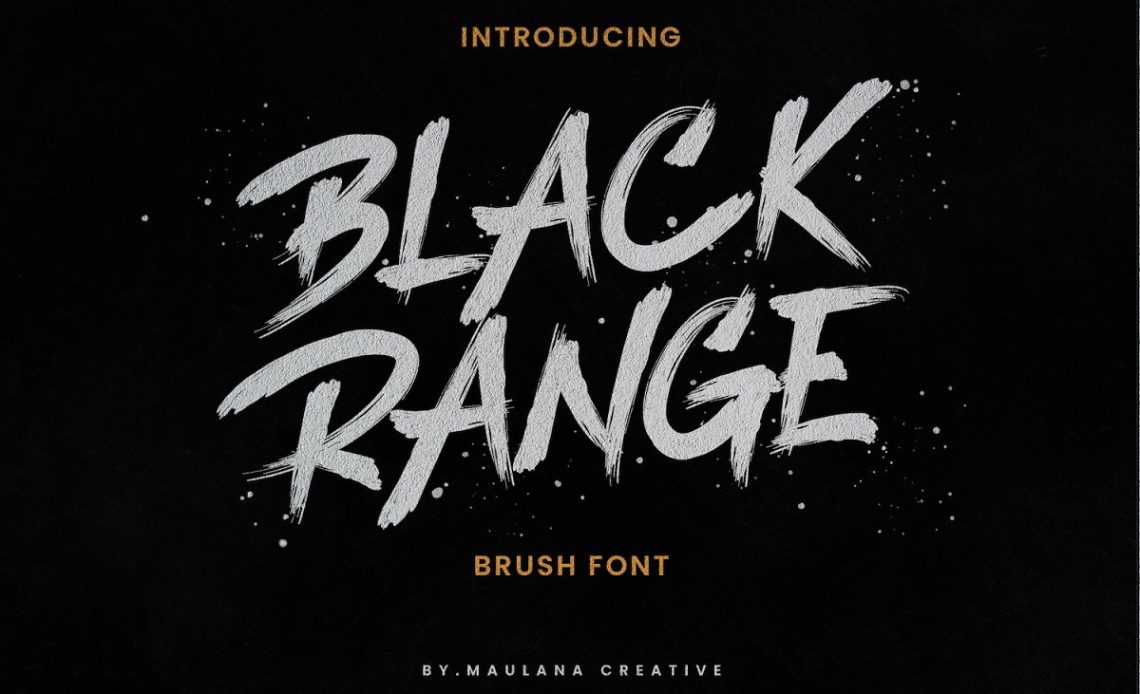
Introducing the perfect font for bringing your designs to life - Black Range Brush Font by Maulana Creative! This sans serif font offers an authentic brush handcrafted feel, giving your projects a unique and eye-catching appeal.
Are you tired of using bland and uninspired fonts in your designs? Look no further than Black Range Brush Font! This font is the perfect choice for anyone looking to add a touch of personality to their work. With its bold and expressive strokes, Black Range Brush Font will instantly elevate any project and make it stand out from the crowd.
Whether you're designing stationery, logos, or any other type of creative project, Black Range Brush Font is the perfect choice. And with the included OTF and TTF file formats, you can easily incorporate this font into your workflow and start creating amazing designs today.